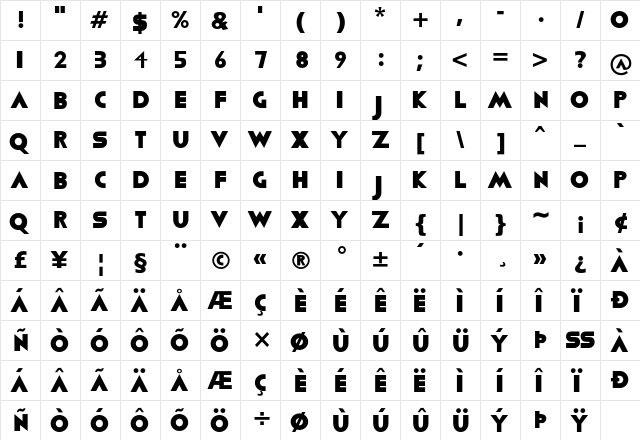
Viafont Regular
Design Context for Viafont Typeface
Viafont is a composed and adaptable typeface that performs quietly and consistently across a wide range of design contexts.